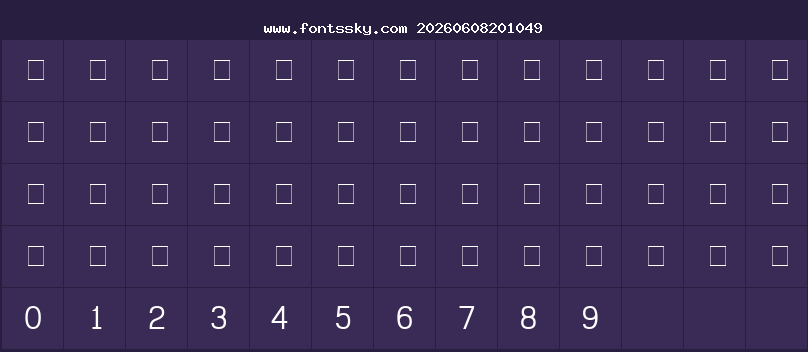
Chenla Preview
• Font Name: Chenla
• Full Font Name: Chenla
• Version: Version 6.00 December 28, 2010
• Designer: Danh Hong
About Chenla.ttf
Chenla.ttf is a modern, elegant sans-serif font designed for ultimate readability and visual harmony. Perfect for branding, headlines, web design, and print materials.